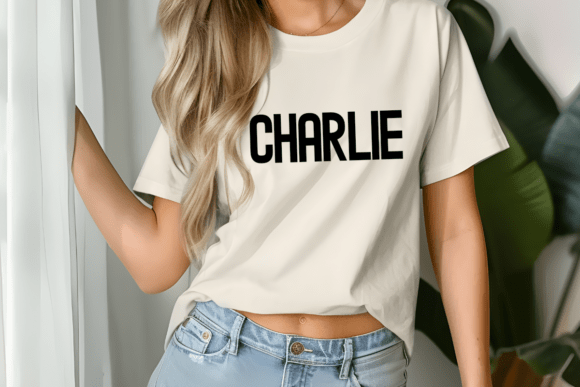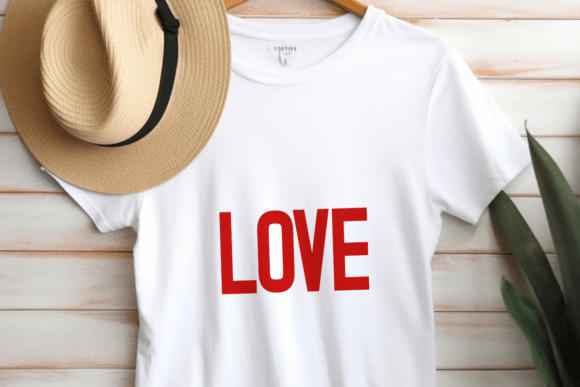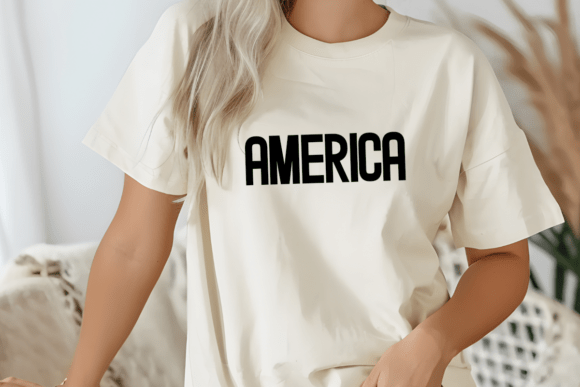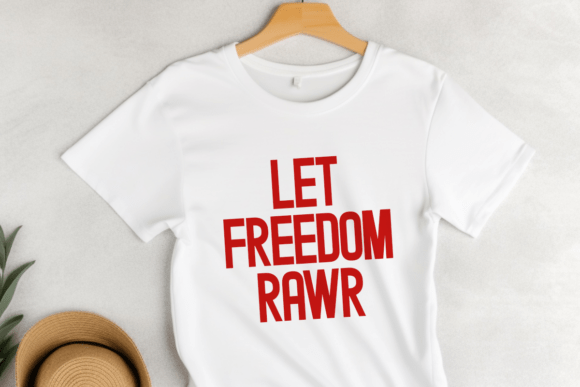
Introducing Freedom Font: The Perfect Blend of Modern and Vintage
Are you a designer, crafter, or DIY enthusiast looking for a font that can elevate your creative projects? Look no further than Freedom Font, a stunning modern condensed sans serif font with a vintage feel. This versatile font is perfect for a wide range of applications, from logos and branding to t-shirts, mugs, invitations, and more.
What is Freedom Font?
Freedom Font is a carefully crafted typeface that combines the clean lines and simplicity of modern sans serif fonts with the charm and character of vintage typography. The result is a unique and eye-catching font that is sure to make your designs stand out. With its condensed style, Freedom Font is perfect for creating bold and striking text that grabs attention.
Key Features of Freedom Font
• Modern condensed sans serif font: Freedom Font features a sleek and streamlined design that is perfect for modern designs.
• Vintage feel: The font’s subtle distressed texture and classic letterforms evoke a sense of nostalgia and timelessness.
• Highly versatile: Freedom Font can be used for a wide range of projects, from logos and branding to t-shirts, mugs, invitations, and more.
• Easy to read: Despite its condensed style, Freedom Font remains clear and easy to read, making it perfect for body text and headlines.
Freedom Font is a dream come true for designers and crafters who want to add a touch of modern elegance to their projects. Whether you’re creating logos, branding materials, or promotional products, this font is sure to impress. Here are just a few ideas for using Freedom Font:
• Logos and branding: Create a bold and memorable logo with Freedom Font that will help your brand stand out.
• T-shirts and apparel: Add a stylish touch to your t-shirts, hoodies, and other apparel with Freedom Font.
• Mugs and drinkware: Create eye-catching mugs, water bottles, and other drinkware with Freedom Font.
• Invitations and greeting cards: Add a touch of elegance to your invitations, greeting cards, and other paper crafts with Freedom Font.
• Posters and signage: Use Freedom Font to create bold and striking posters, signs, and other visual displays.
Why Choose Freedom Font?
With so many fonts to choose from, why should you choose Freedom Font? Here are just a few reasons:
• Unique and eye-catching: Freedom Font’s blend of modern and vintage elements makes it a standout in any design.
• Highly versatile: This font can be used for a wide range of projects, from small crafts to large-scale branding campaigns.
• Easy to use: Freedom Font is a straightforward and easy-to-use font that will save you time and effort.
Freedom Font is a versatile and eye-catching font that is perfect for designers, crafters, and DIY enthusiasts. With its modern condensed sans serif design and vintage feel, this font is sure to elevate your creative projects and help you stand out from the crowd. Whether you’re creating logos, branding materials, or promotional products, Freedom Font is the perfect choice for a modern yet simple design.